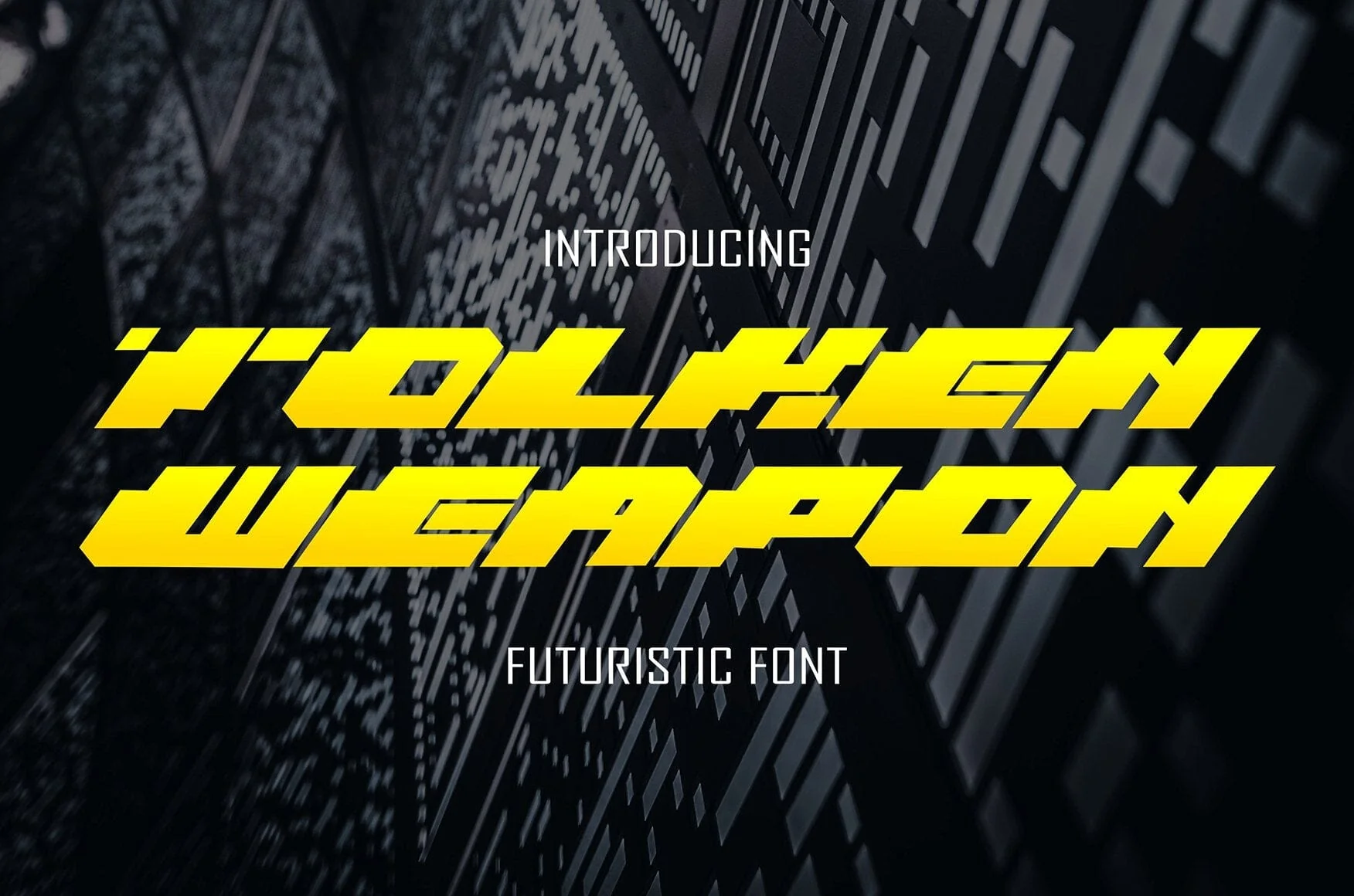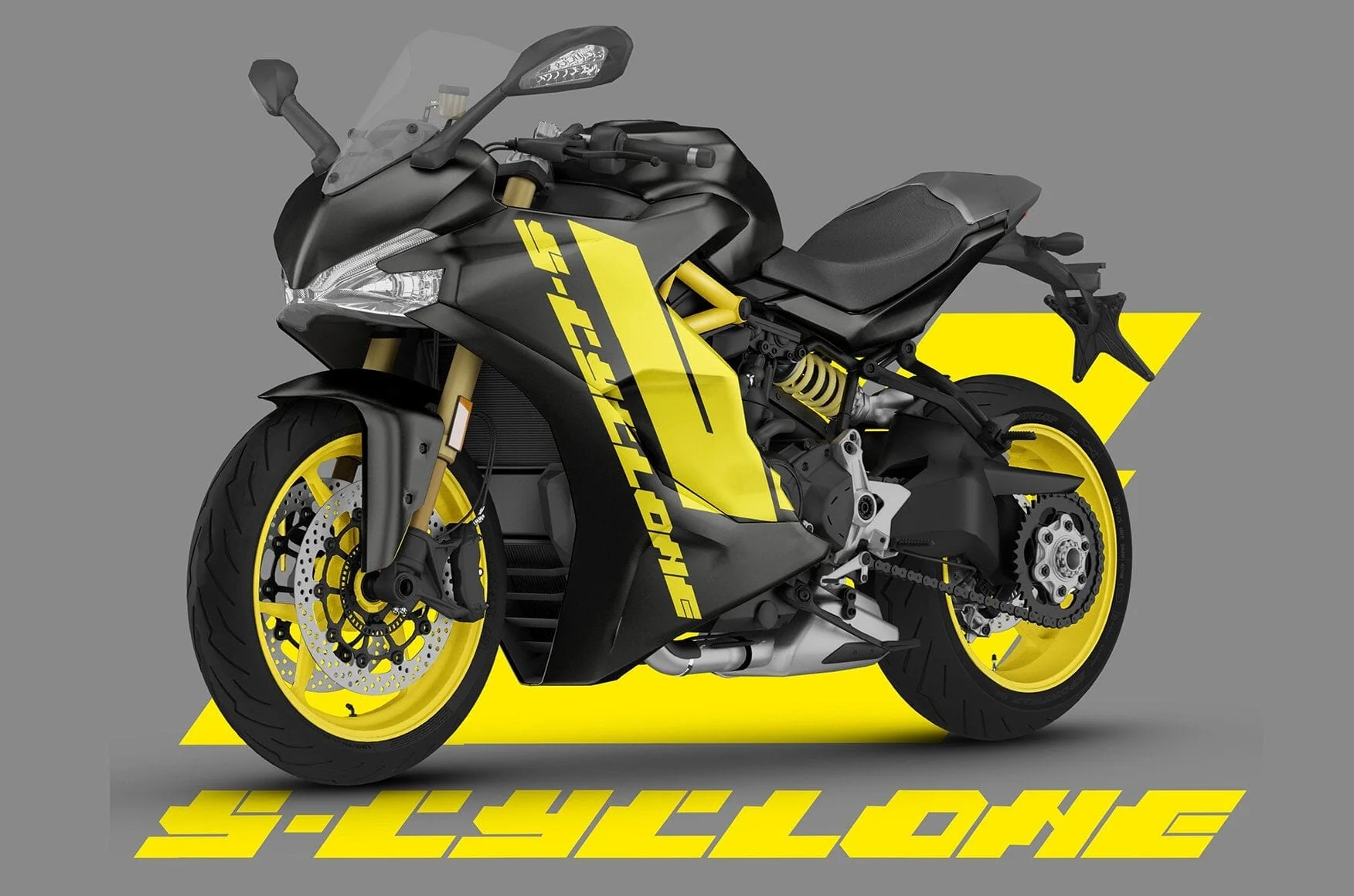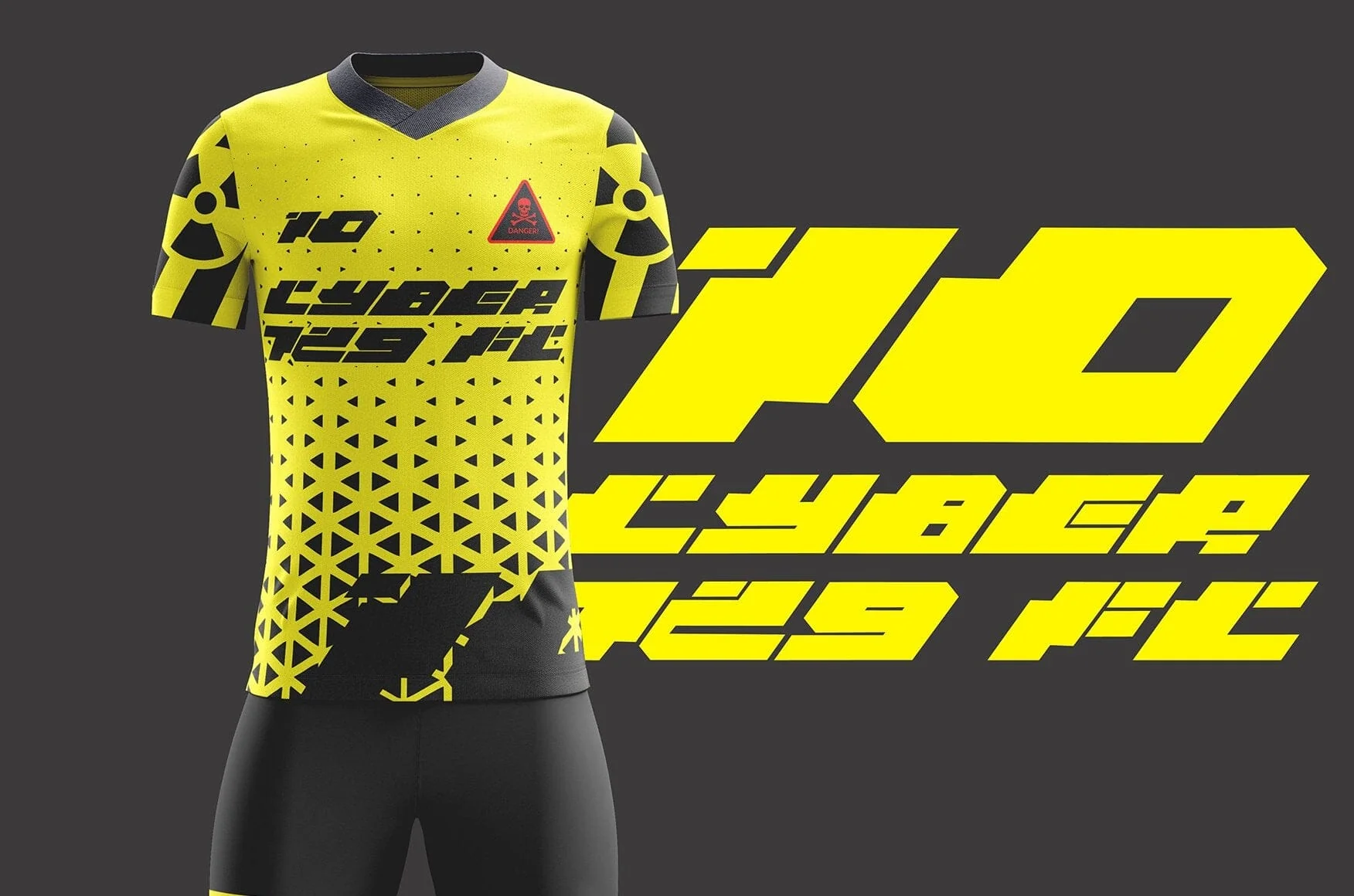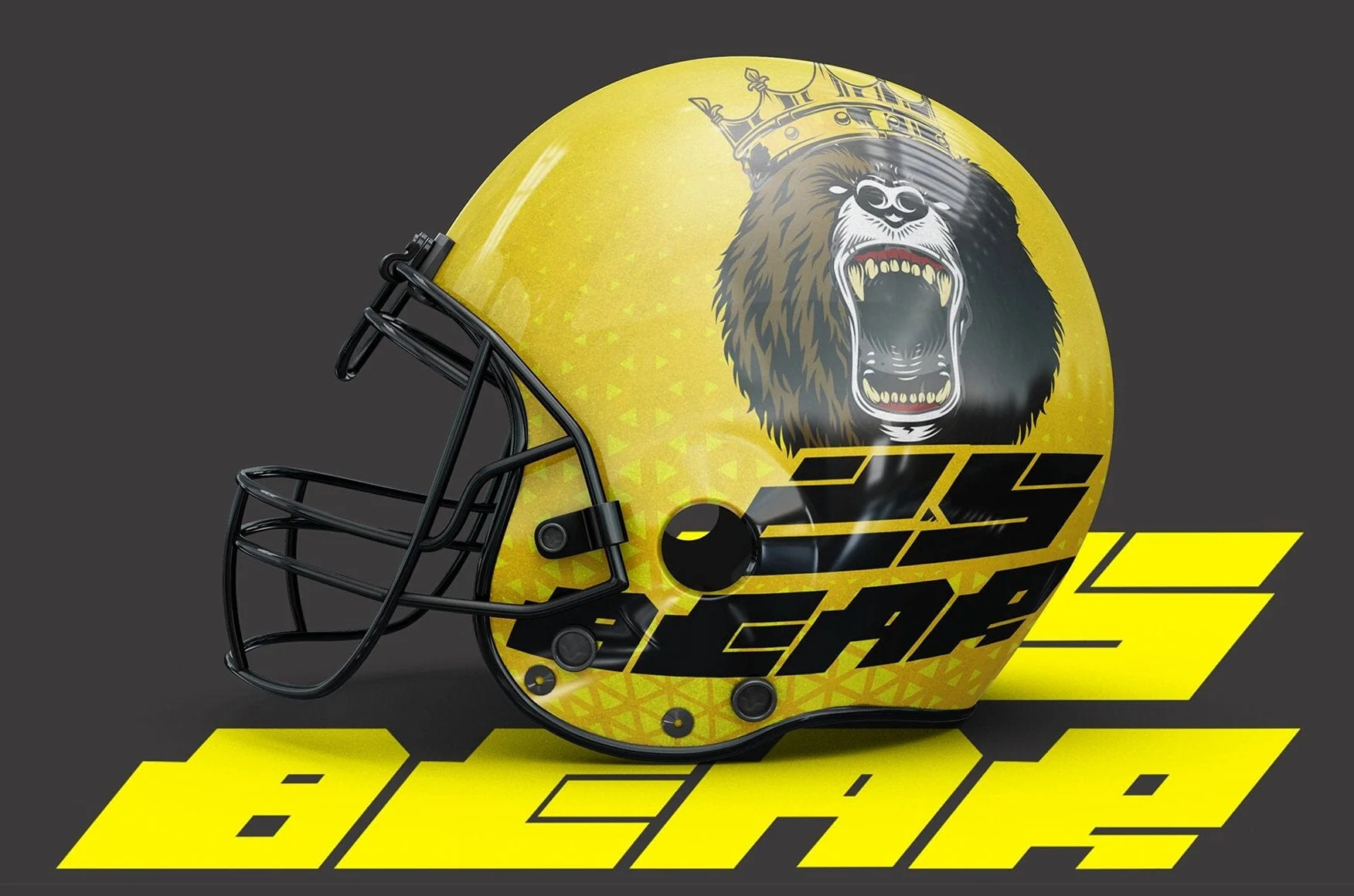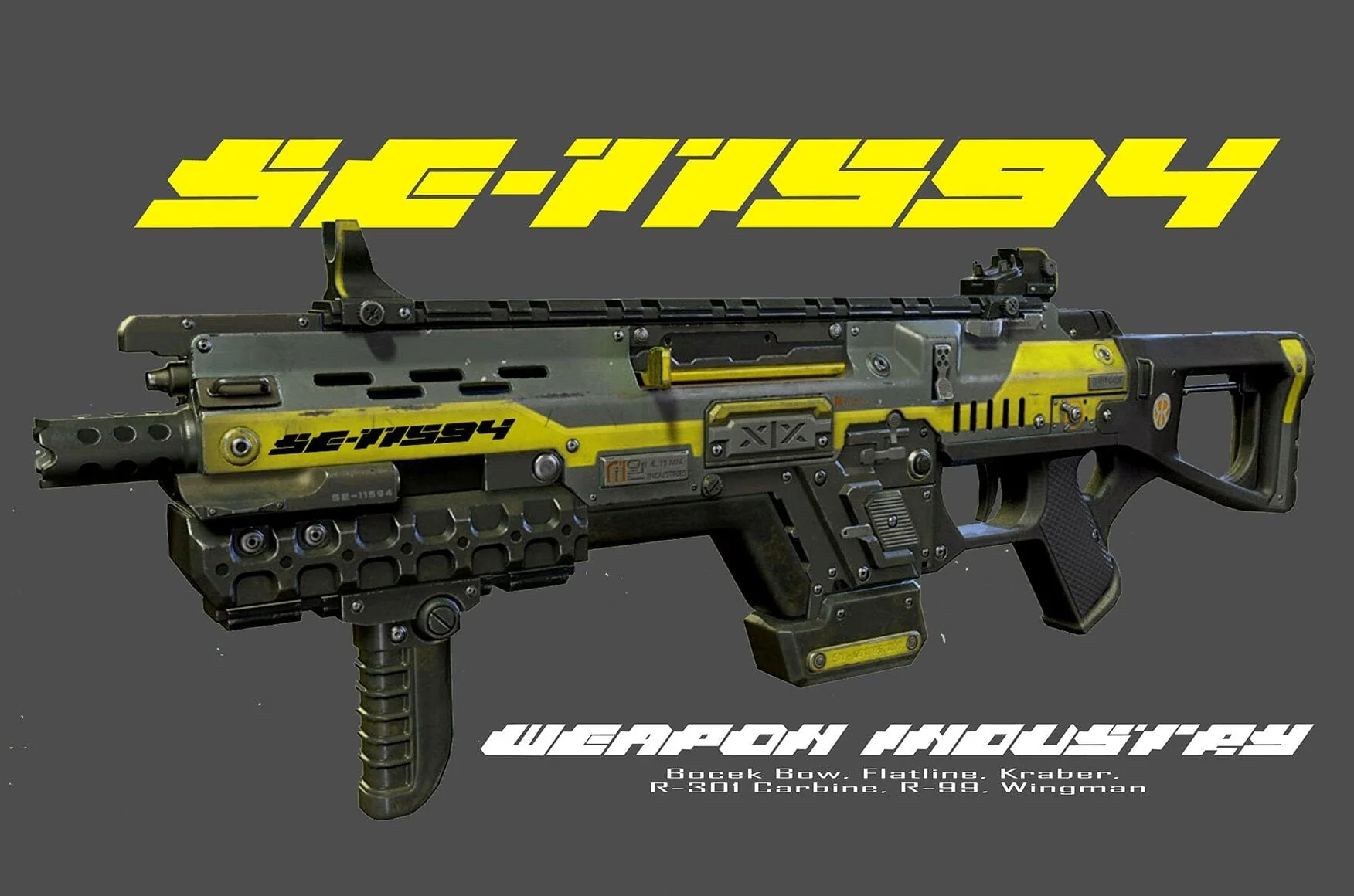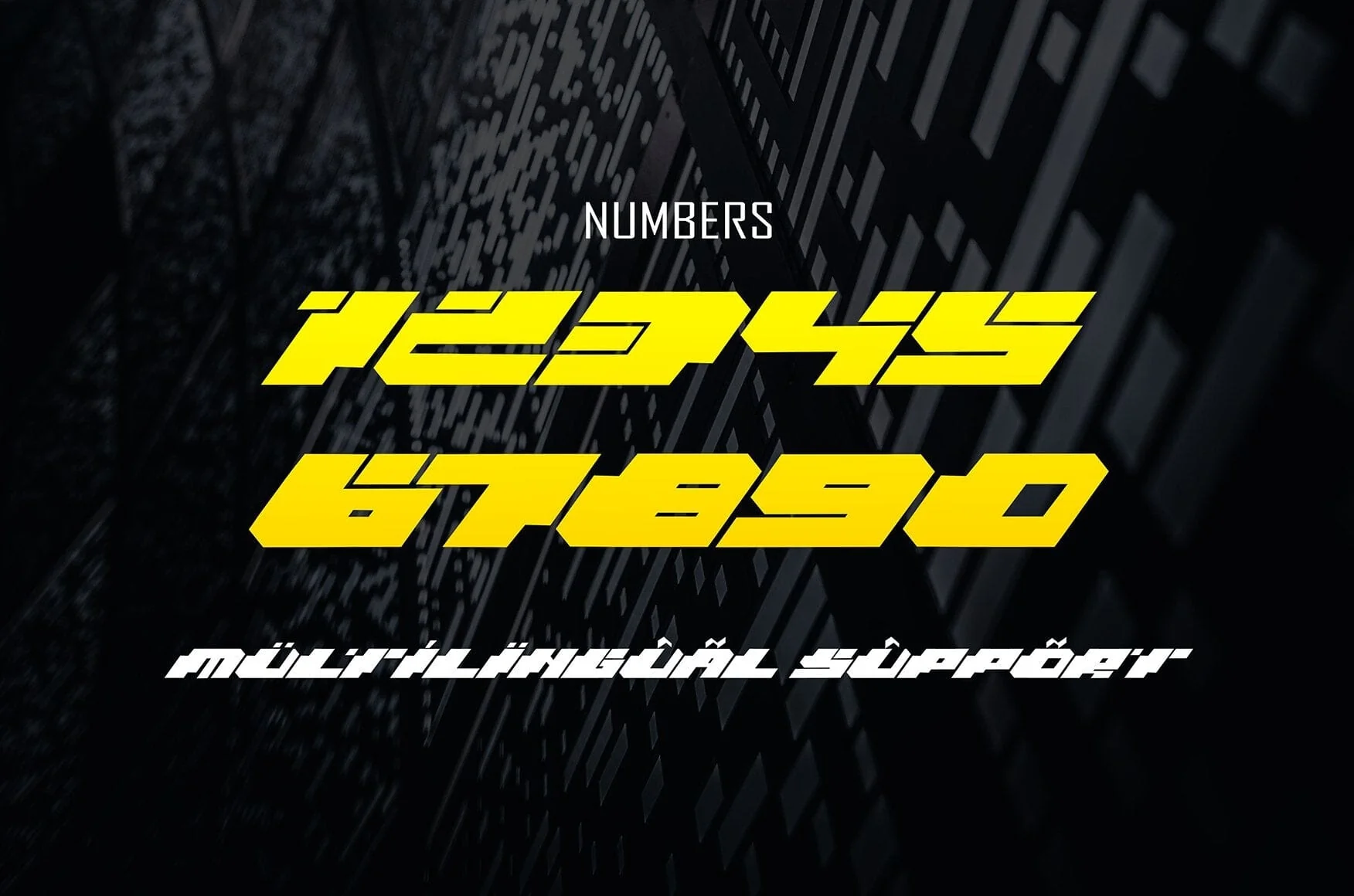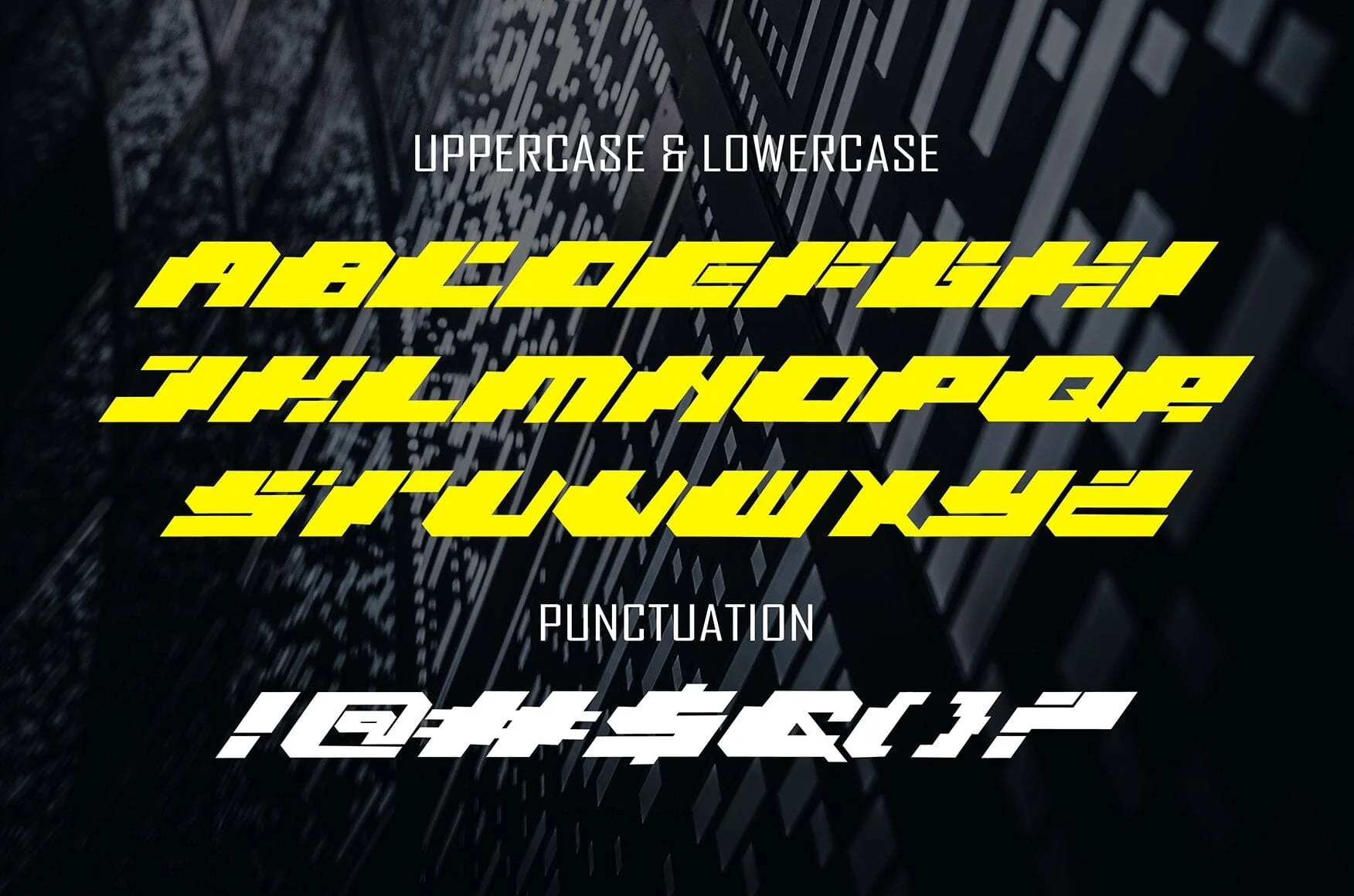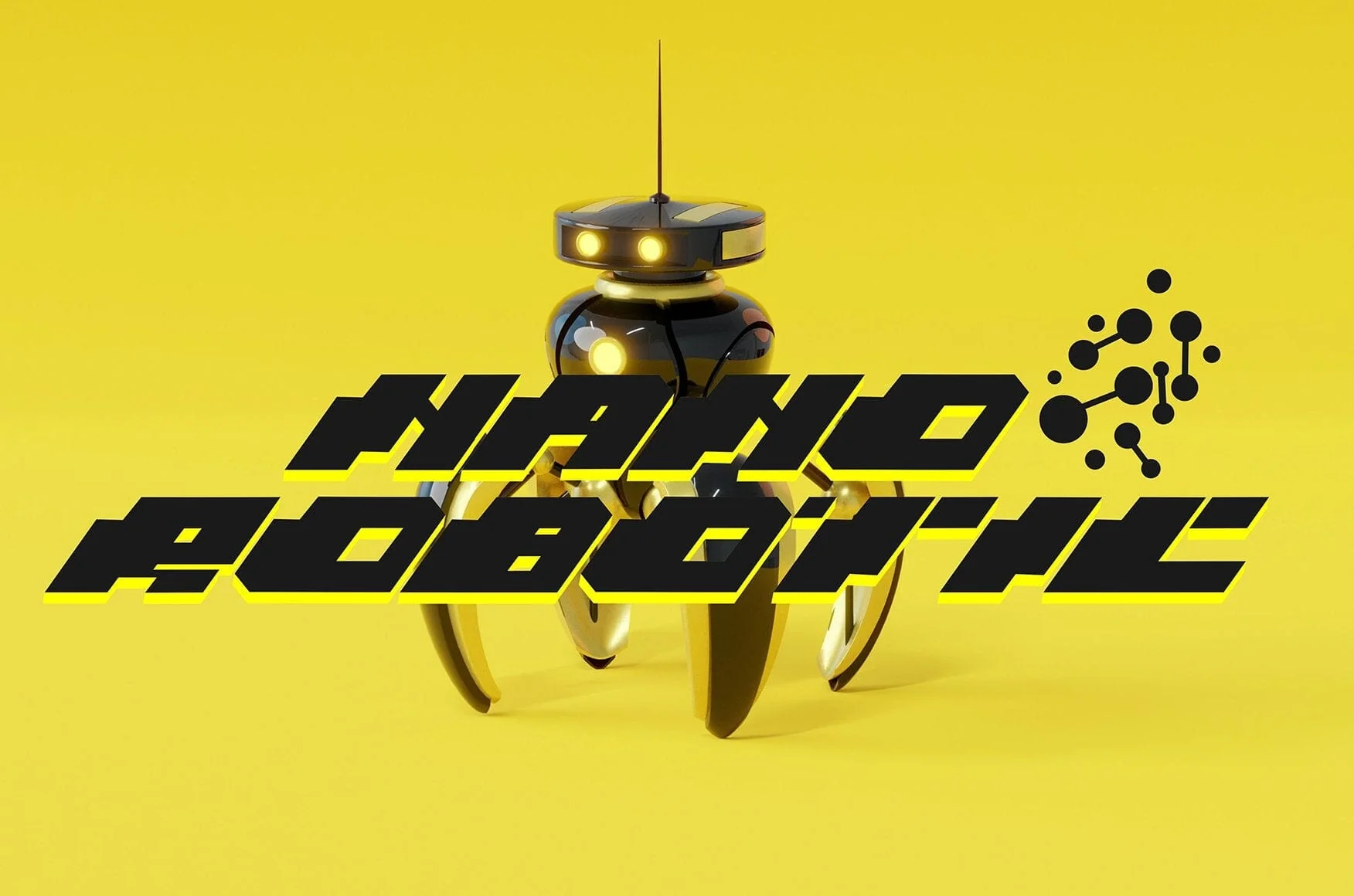
Tolken Weapon - Racing Typeface 2023
Tolken Weapon is Powerful Racing Theme Font. The font is ready to be used for your racing sports or automotive-related projects.
Built to be perfect for headlines, jerseys, logos, branding, posters, packaging, advertising, and much more.
Features:
- Uppercase and Lowercase
- Number and Punctuation
- Versatile for branding, headline, or printing product
- Graffiti Characters looks